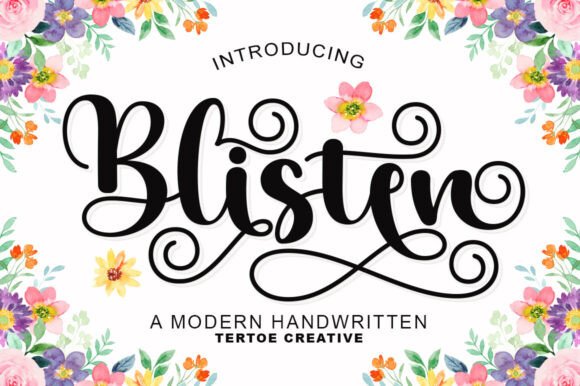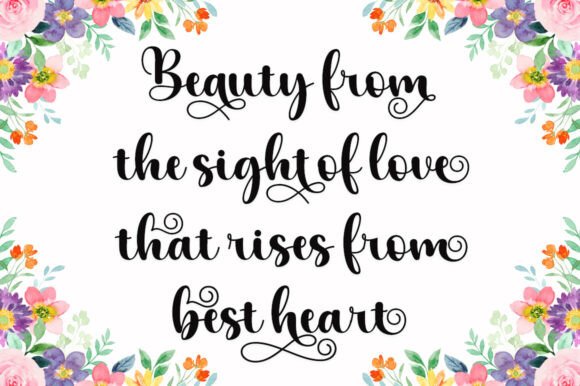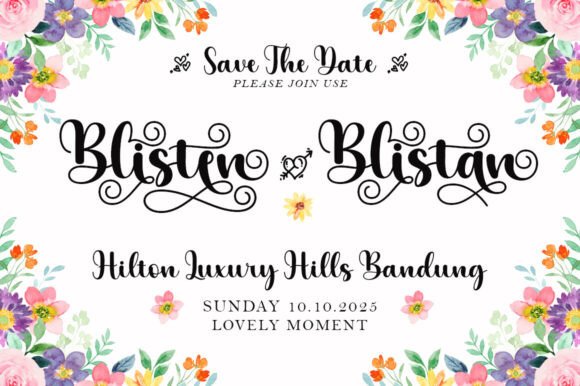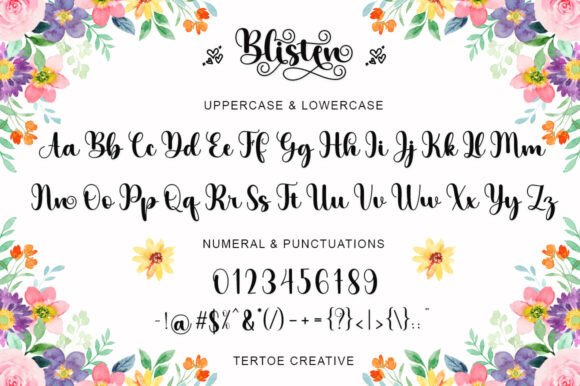
Blisten Font: Elegant Script for Wedding Designs & Branding
About the Blisten Font
Discover the charm of Blisten Font. This font is a perfect blend of modern aesthetics and classic appeal. Blisten feels equally charming and elegant. This stunning script font is a stylish homage to classic calligraphy. It will elevate any design project to the highest level, be it branding, titles, wedding designs, invitations, signs, logos, labels and more!
Blisten Font Usage Examples
Blisten Font Example